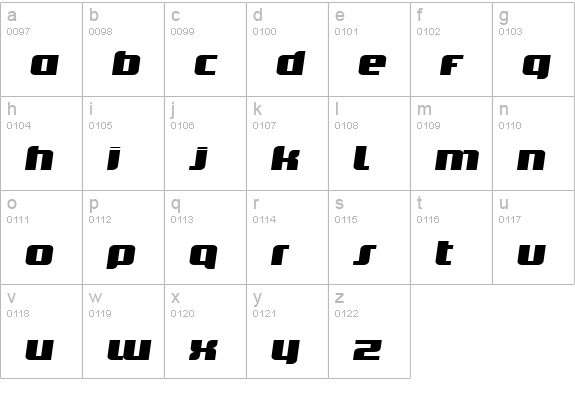
TransItalic Font Details
Introducing TransItalic, a sleek and modern font that effortlessly captures attention with its unique blend of elegance and innovation. This font is the embodiment of versatility, making it the perfect choice for a wide range of design projects, from logos and branding to editorial layouts and web designs. TransItalic boasts a harmonious balance between traditional and contemporary elements, combining the timeless appeal of classic italics with a fresh, modern twist. Its stylish and refined letterforms gracefully flow across the page, creating a sense of fluidity and sophistication. What sets TransItalic apart is not only its exceptional design but also the fact that it is freely available to download at FontsMarket.com. This means that designers, creatives, and typographic enthusiasts can access this remarkable font without any cost or restrictions, making it a truly invaluable resource for both personal and commercial use. With TransItalic, the possibilities are endless. Its versatility allows it to effortlessly adapt to any project, whether it's a sleek and minimalistic website, a captivating magazine spread, or an eye-catching logo. The font's clean and crisp lines ensure optimal legibility, while its subtle variations in stroke width add a touch of character and charm. Whether you're a seasoned designer or just starting on your creative journey, TransItalic is the perfect companion to elevate your projects and make a lasting impression. Its timeless elegance and contemporary flair will undoubtedly leave a lasting impact on your audience, making it a must-have addition to any font collection. So why wait? Experience the power of TransItalic for yourself by downloading it for free at FontsMarket.com. Join the ever-growing community of designers who have discovered the magic of this exceptional font and unlock a world of endless possibilities.